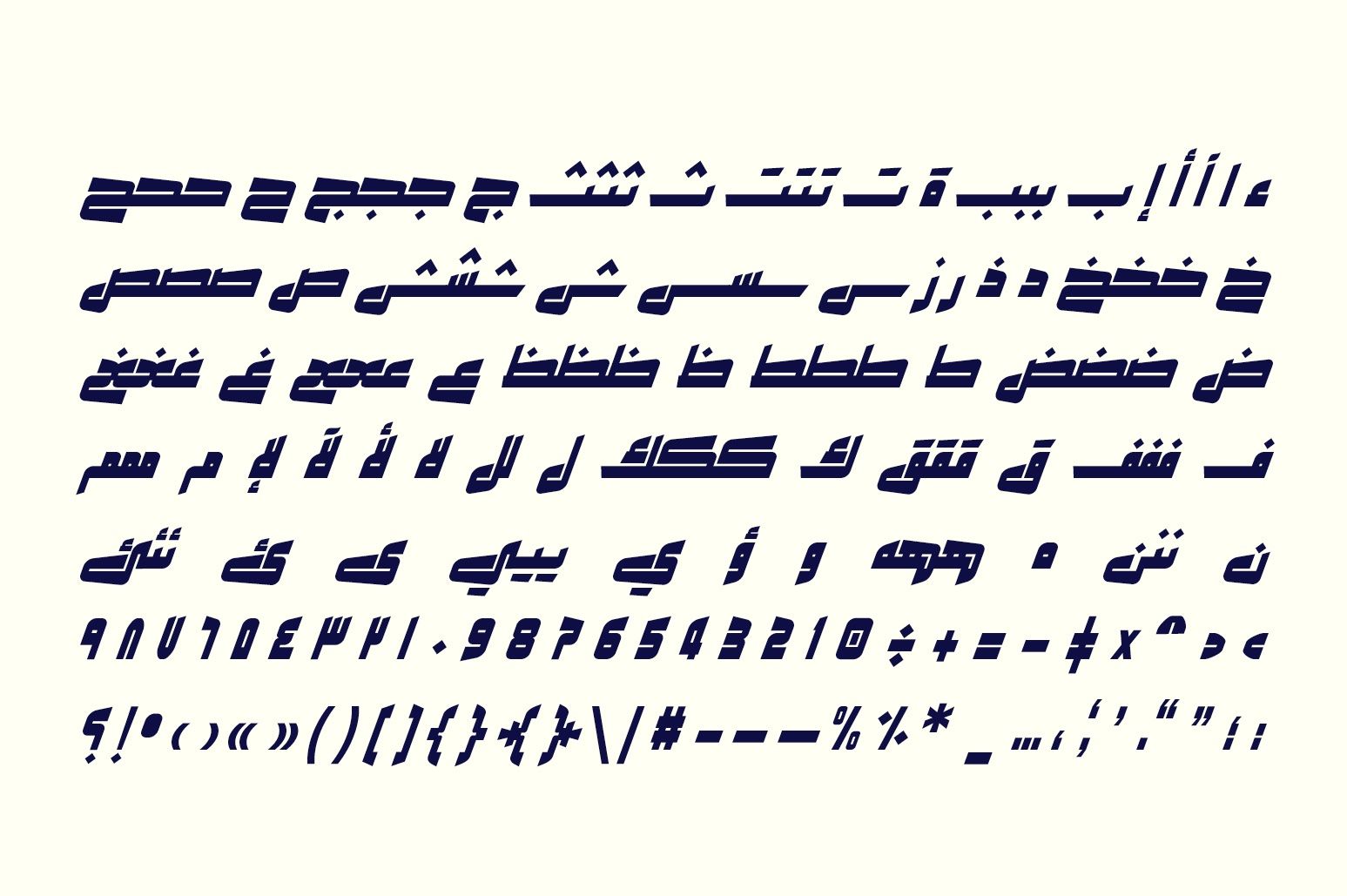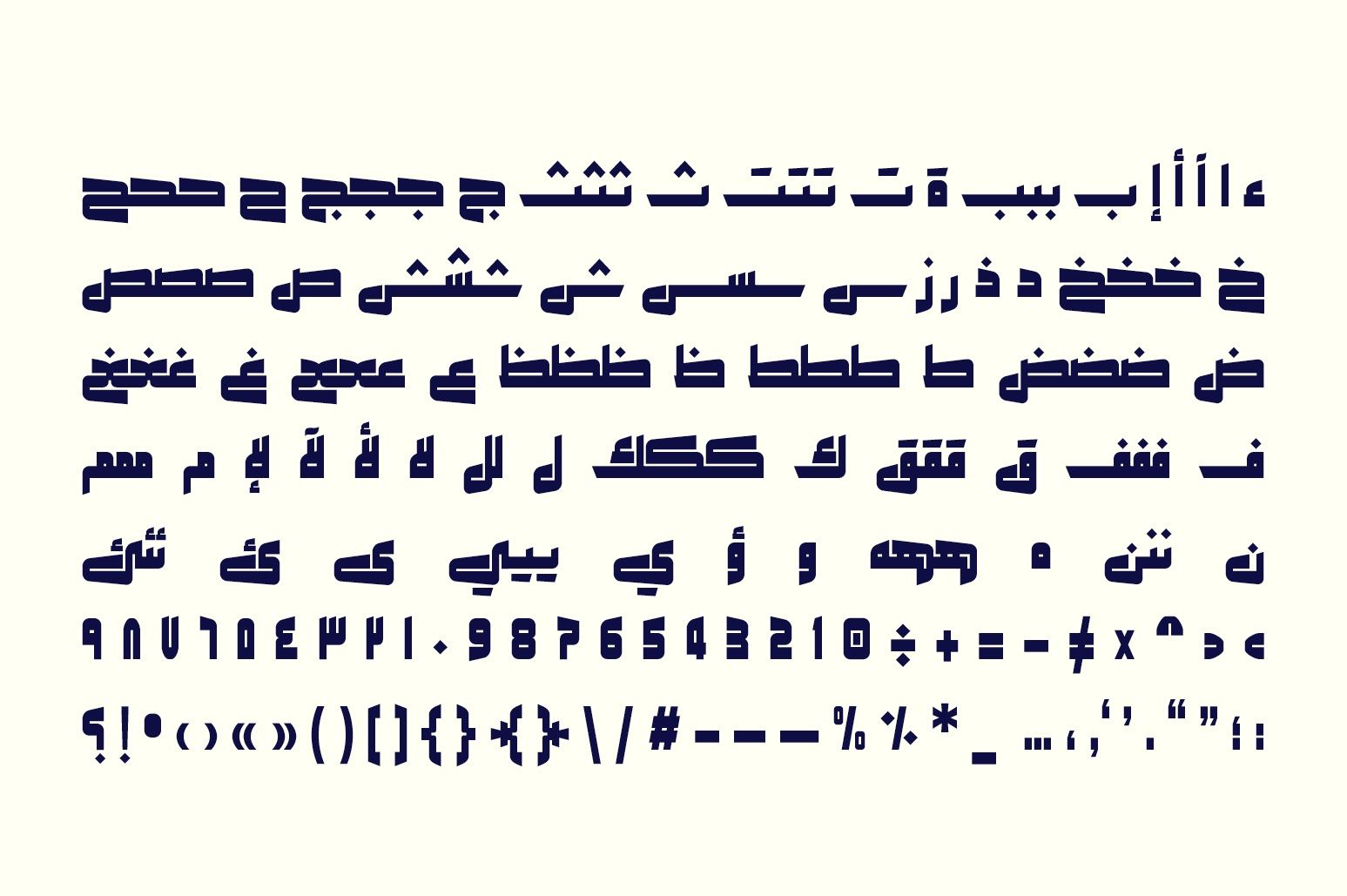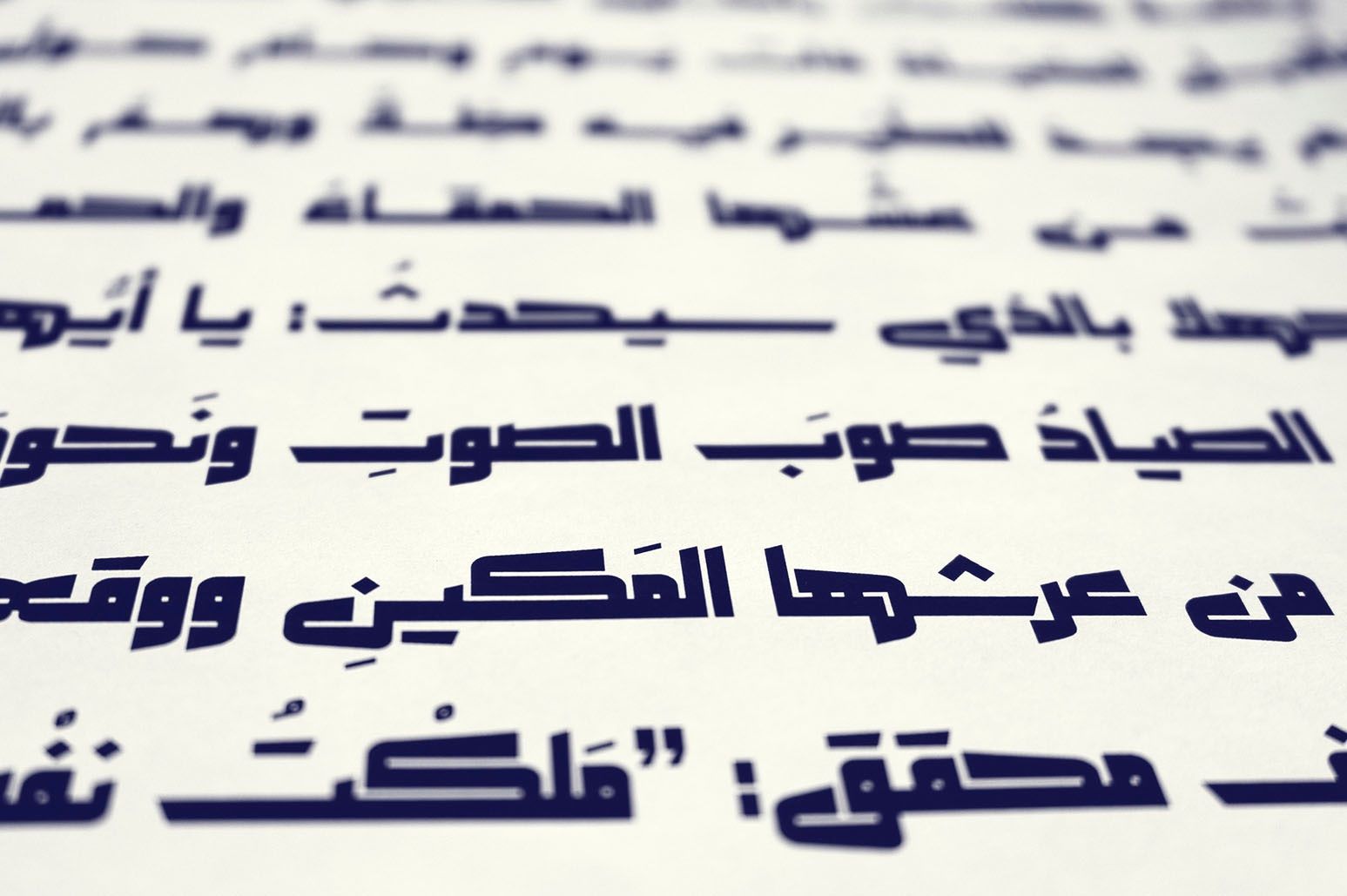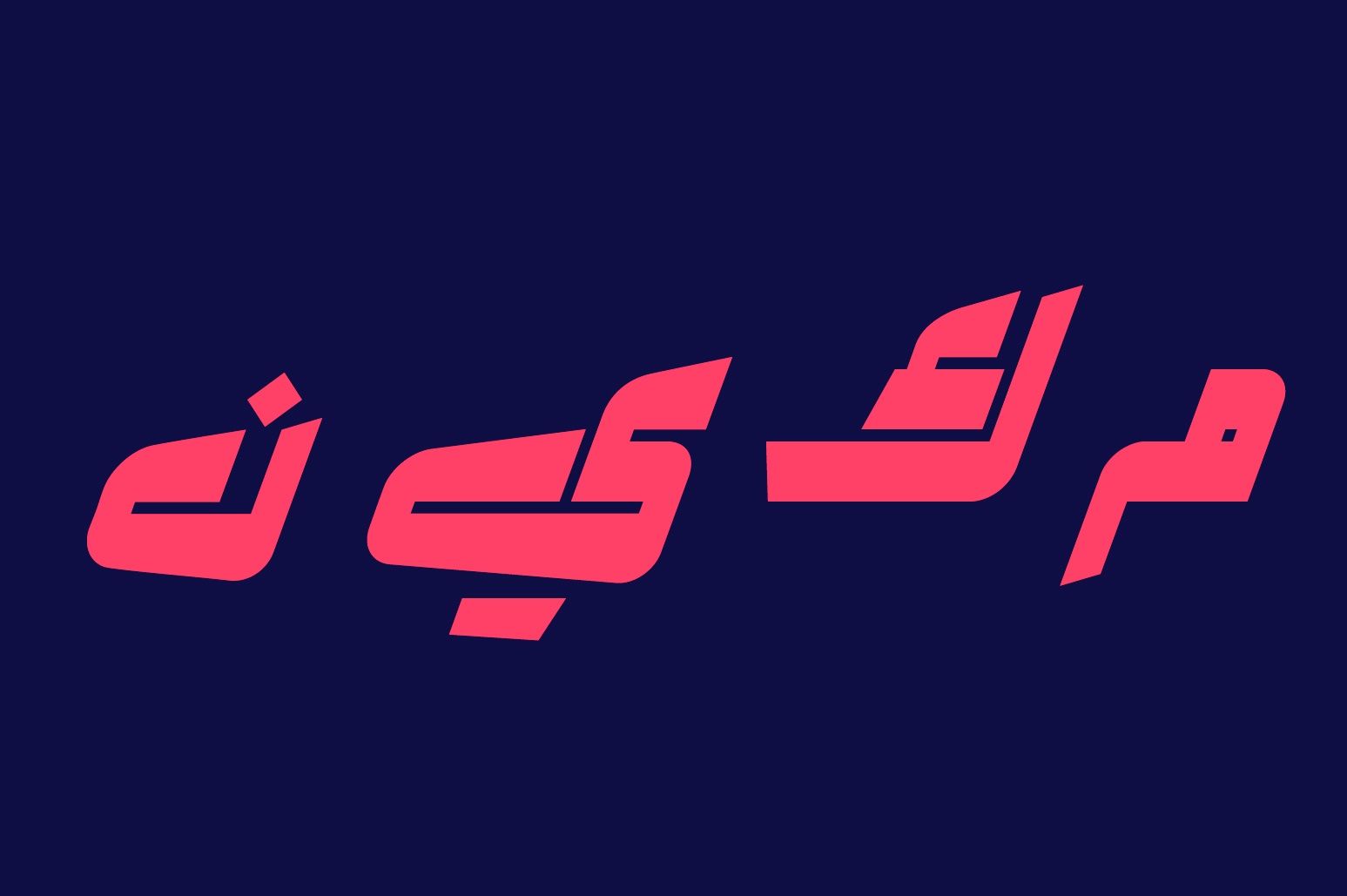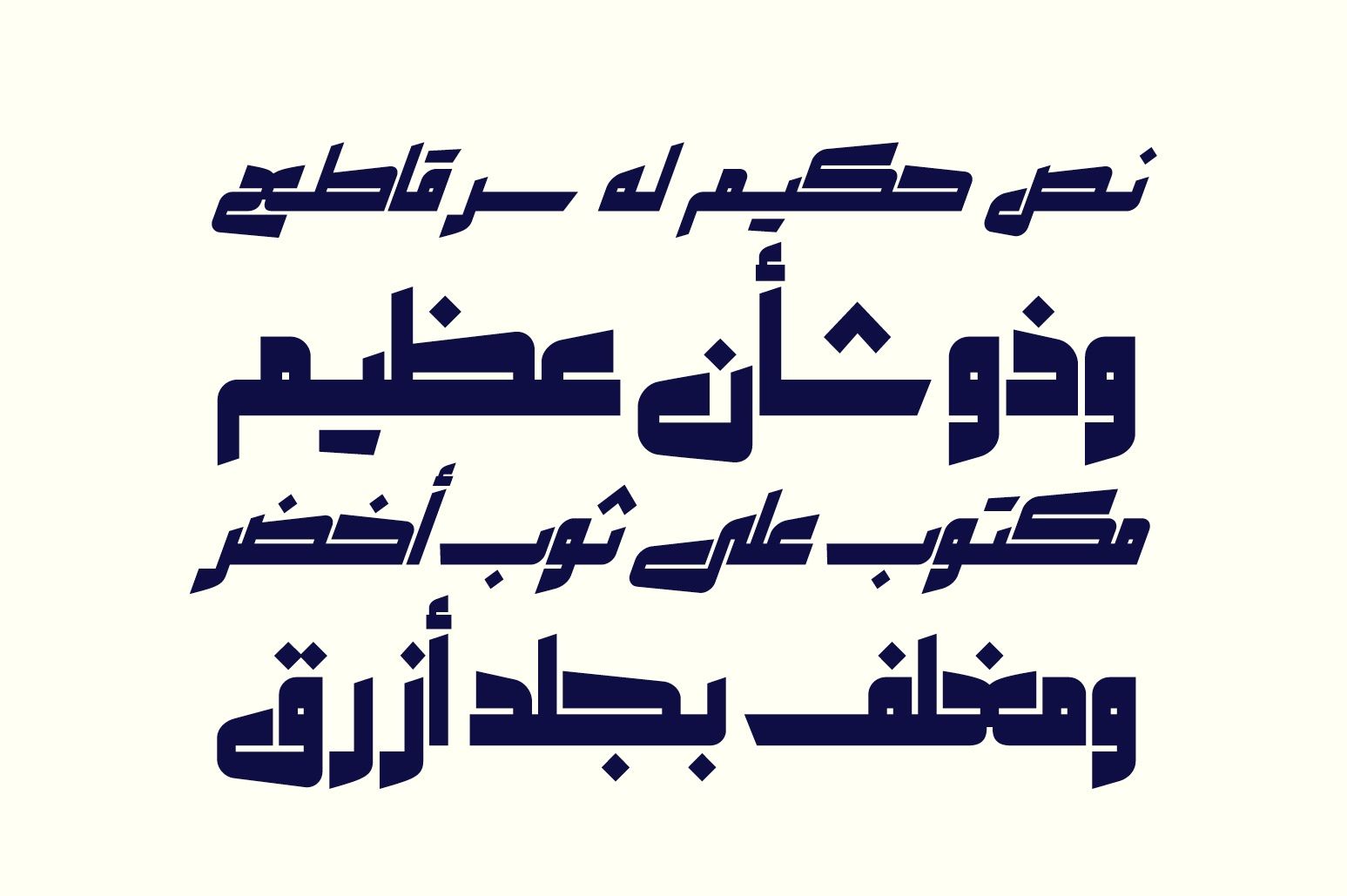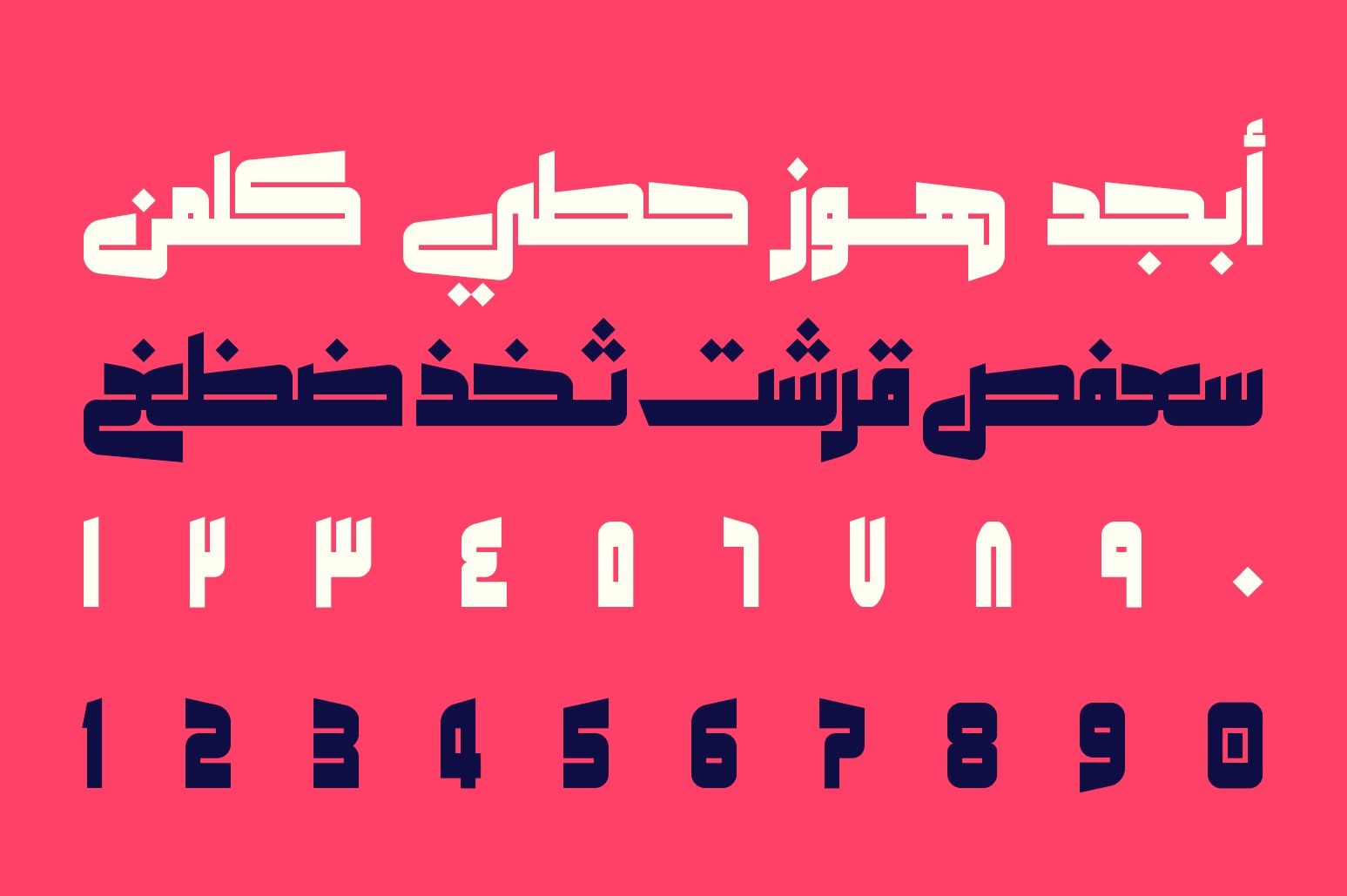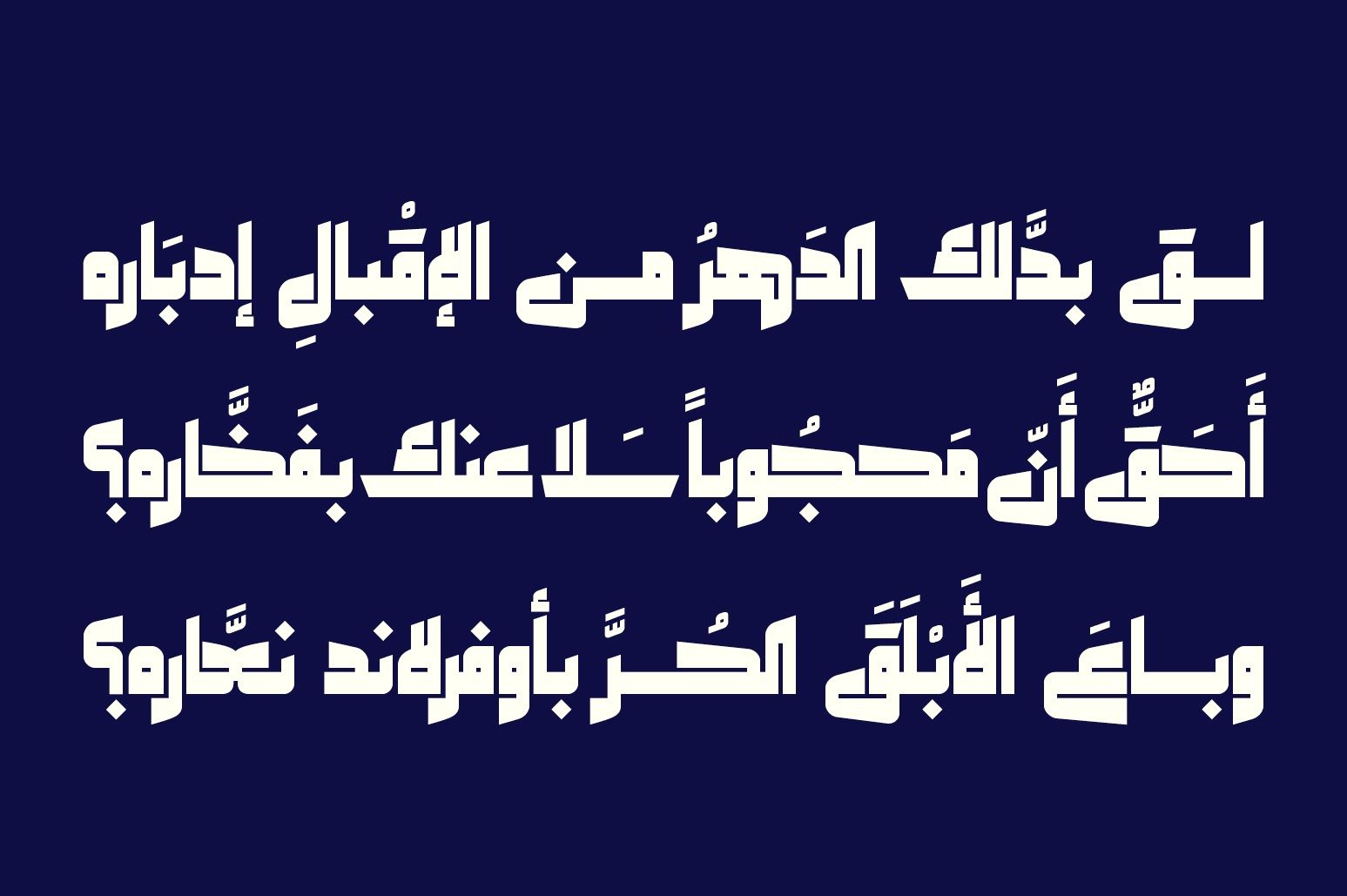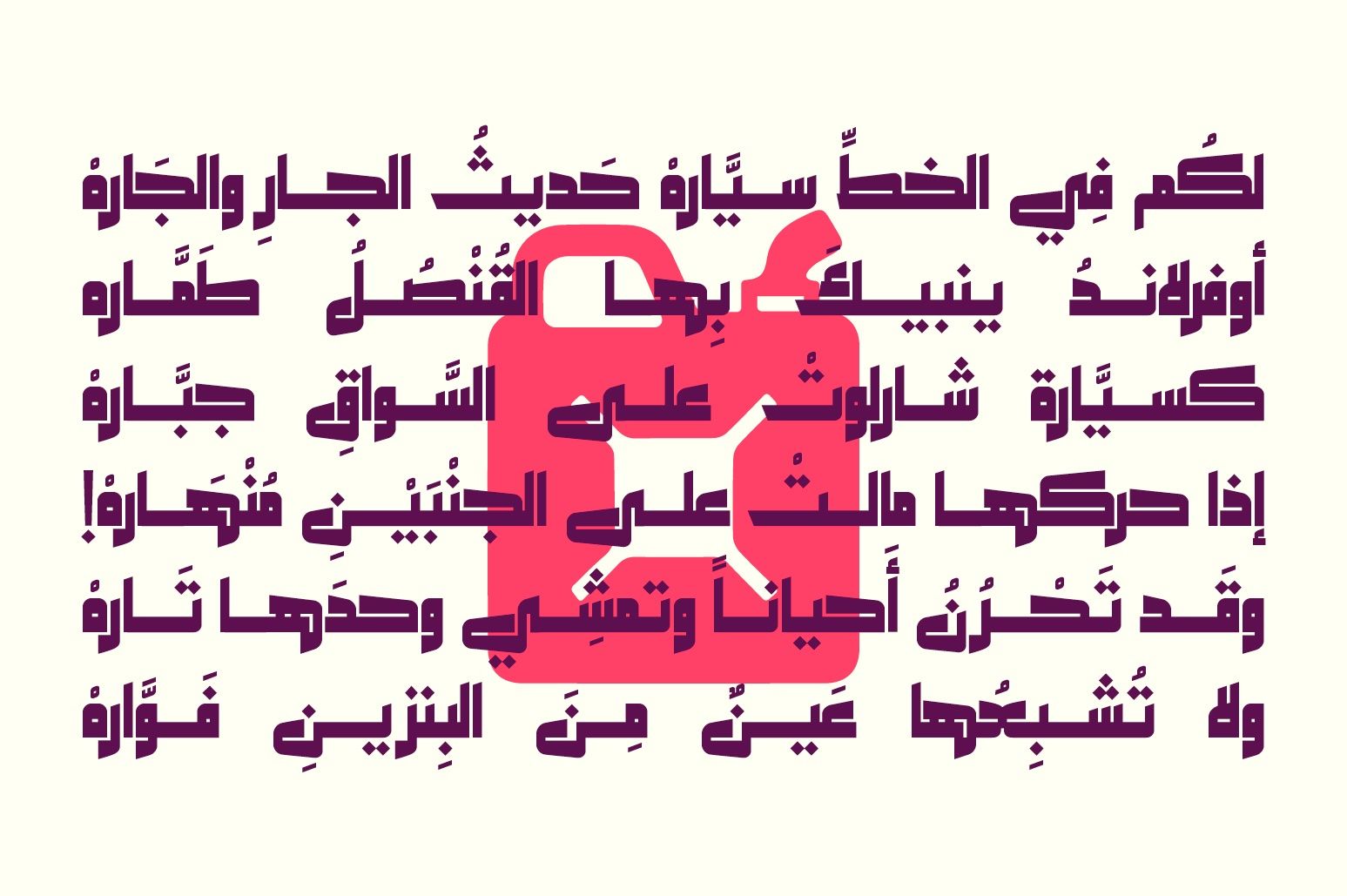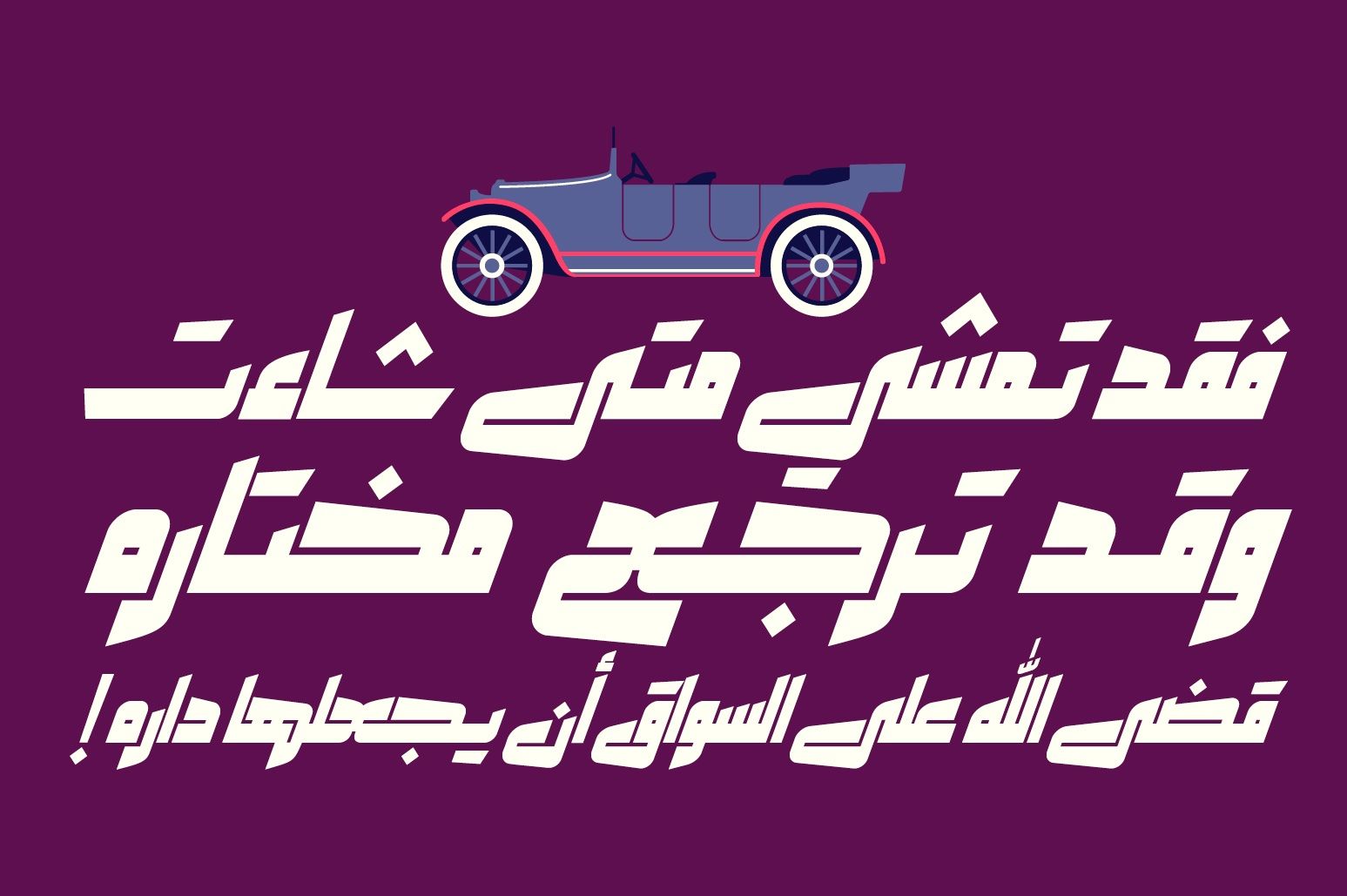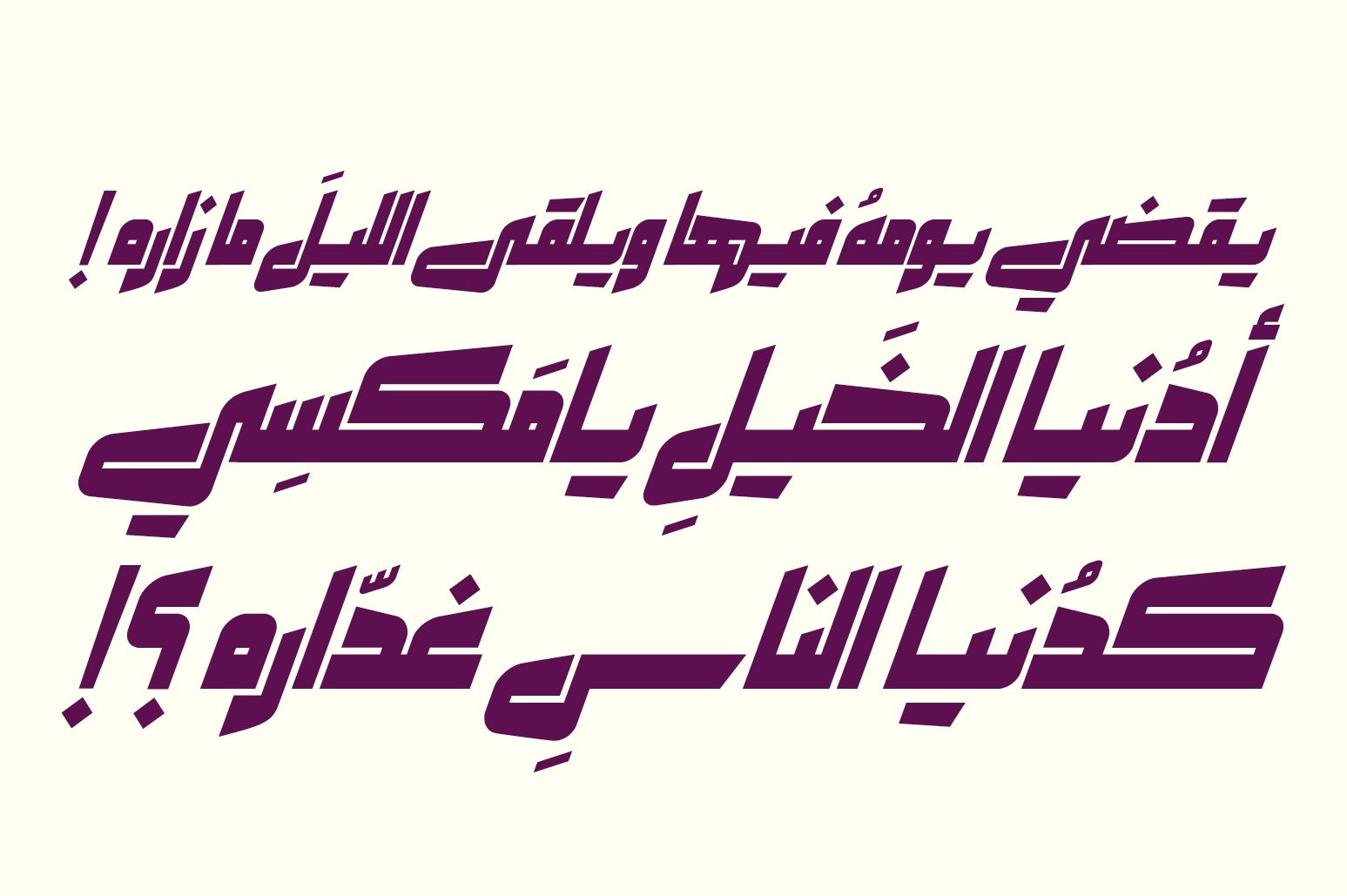
Makeen مكين is a versatile Arabic display font perfect for a wide array of uses, from web design to advertising, publications, and print media. This font family features three distinct styles: Regular, Slant, and Joined-Dots, making it an excellent choice for creative projects.